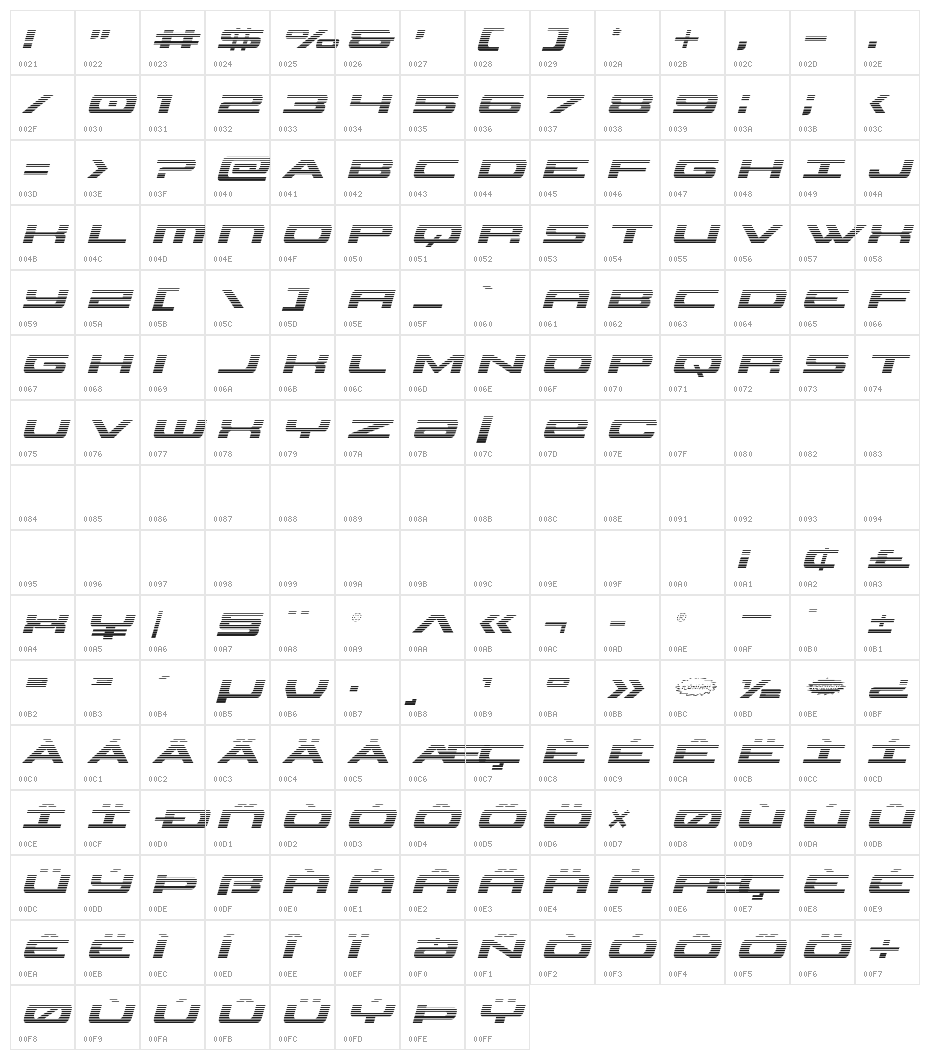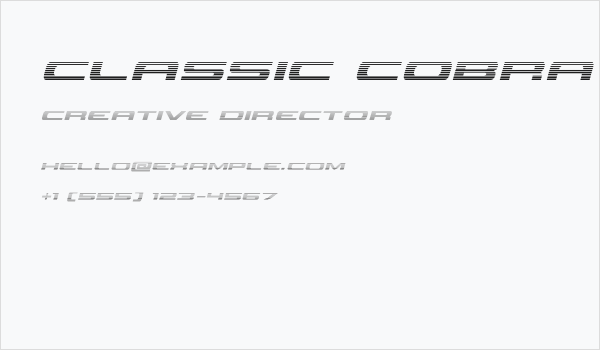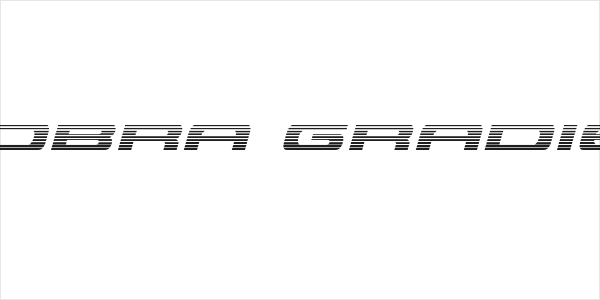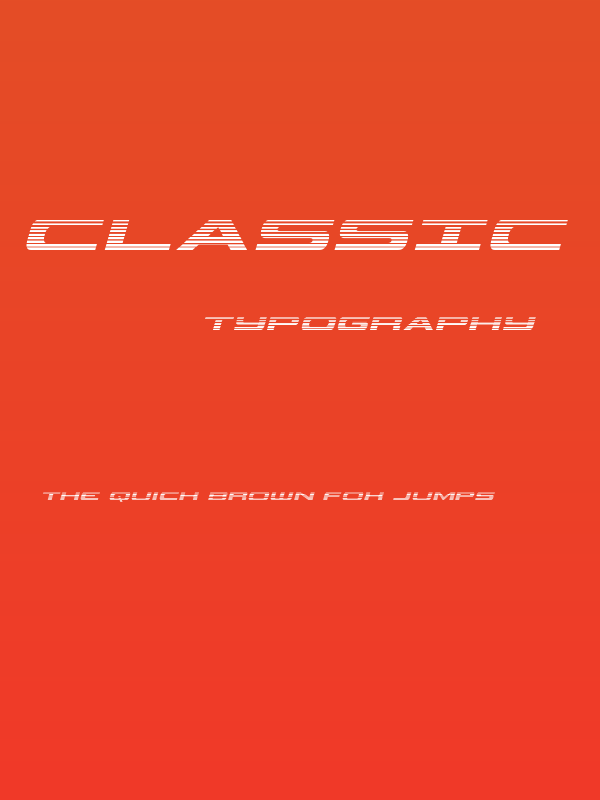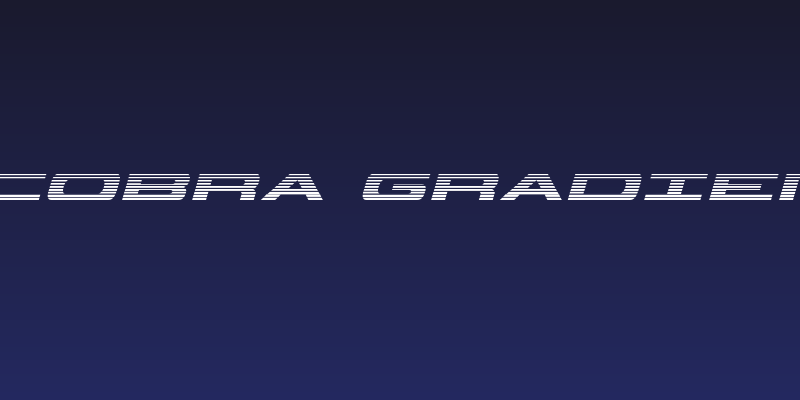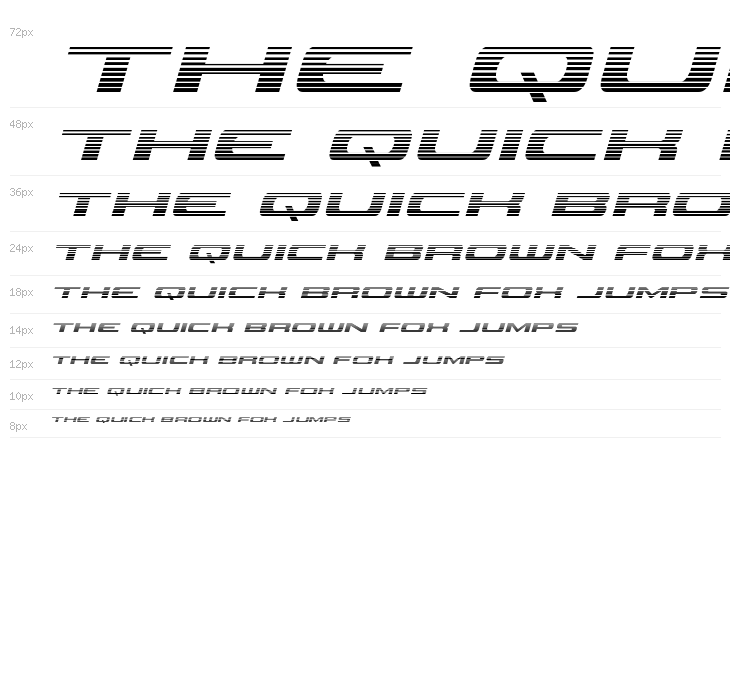
Classic Cobra Gradient Italic Font
Classic Cobra Gradient Italic Description
This font features a dynamic and modern design with a distinct gradient effect that gives each character a sense of motion and depth. The italicized style adds to its sleek and futuristic appearance, making it ideal for projects that require a contemporary and energetic look. The characters are composed of multiple horizontal lines that create a striped pattern, enhancing the visual interest and uniqueness of the typeface. This design choice contributes to a high-tech and digital aesthetic, suitable for innovative branding or creative digital content.
| Use Case | Logos, Headlines, Digital content |
| Proposed Projects | Ideal for tech branding, digital media, futuristic posters, and innovative product packaging. |